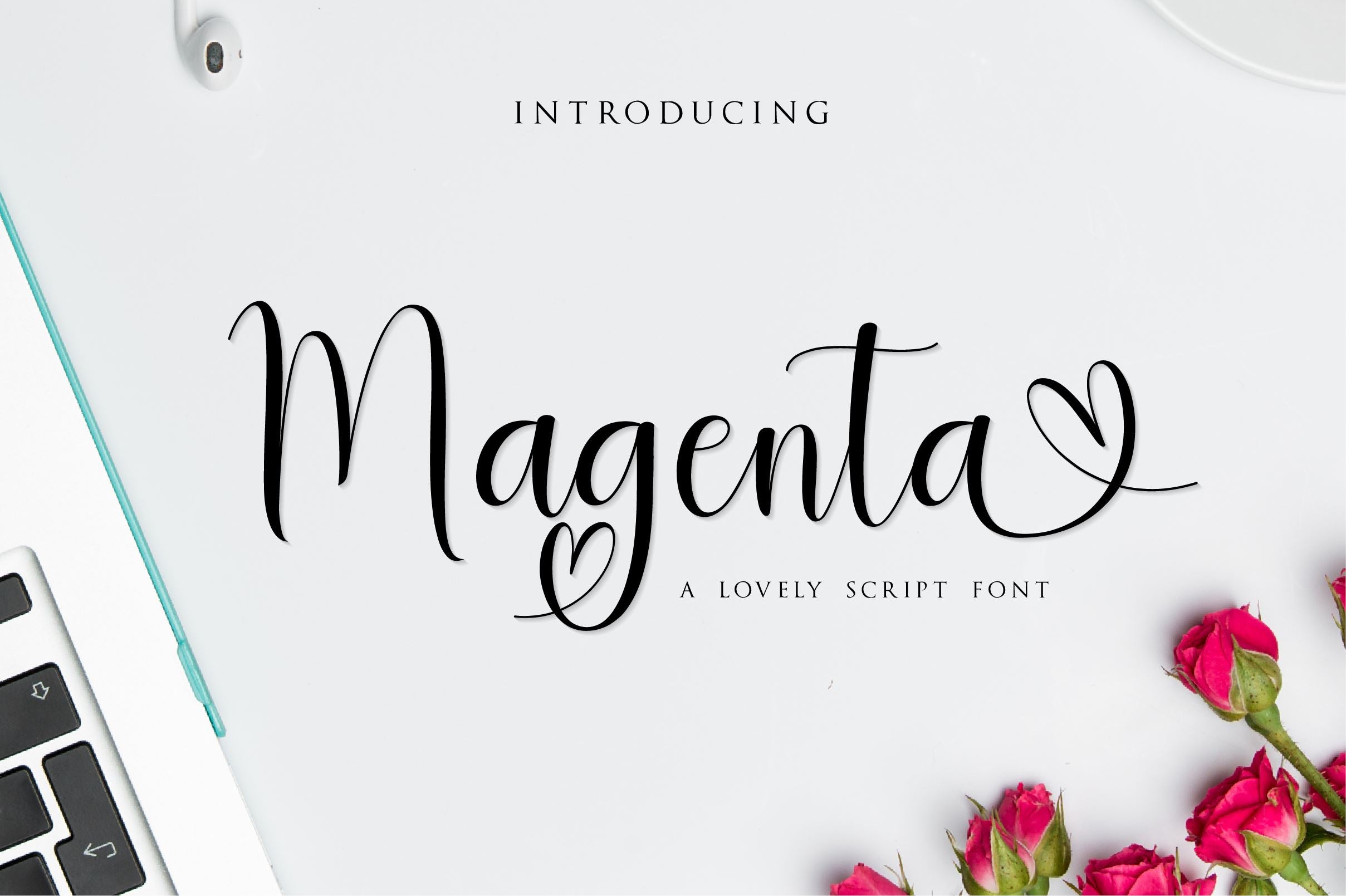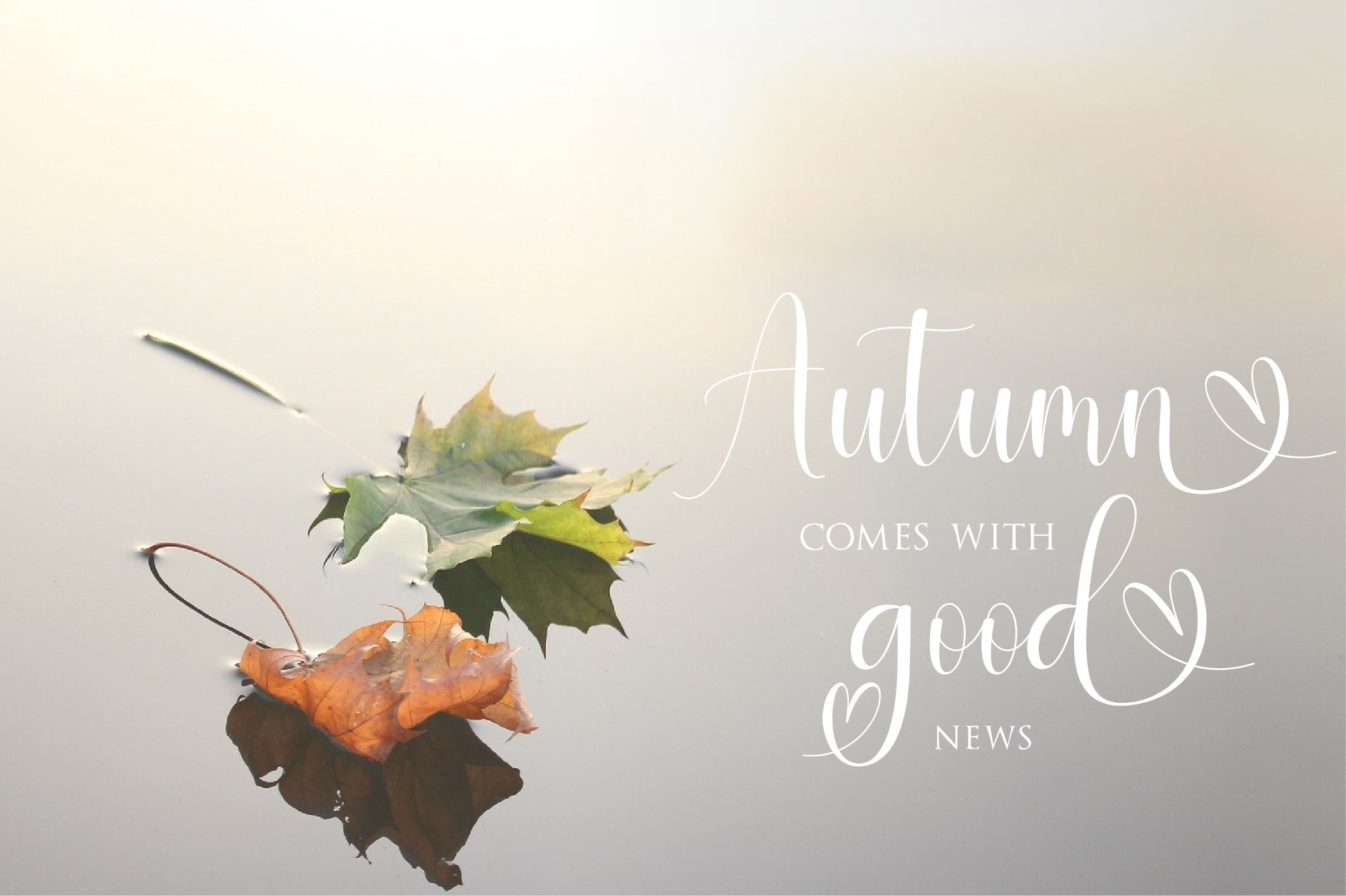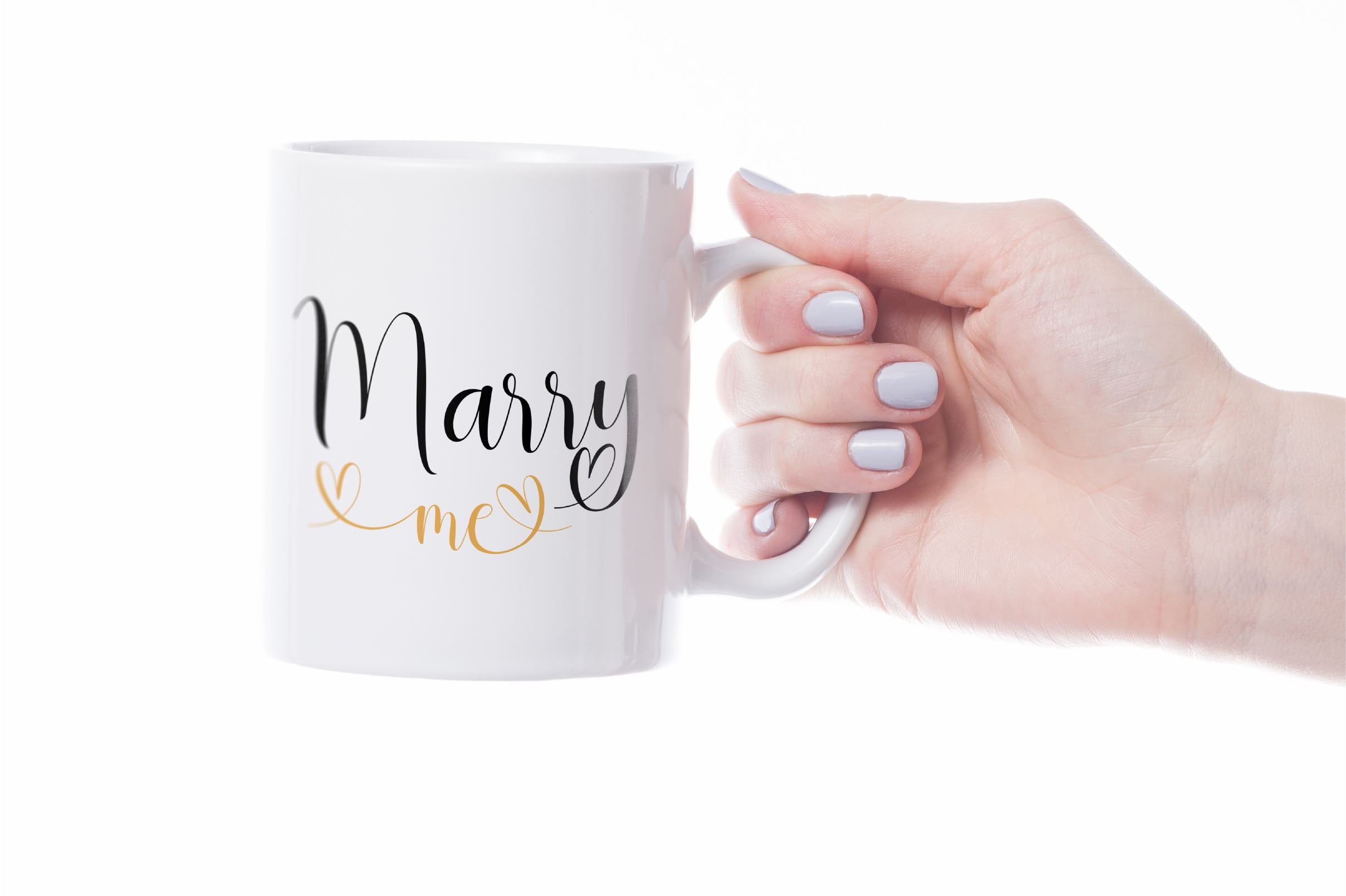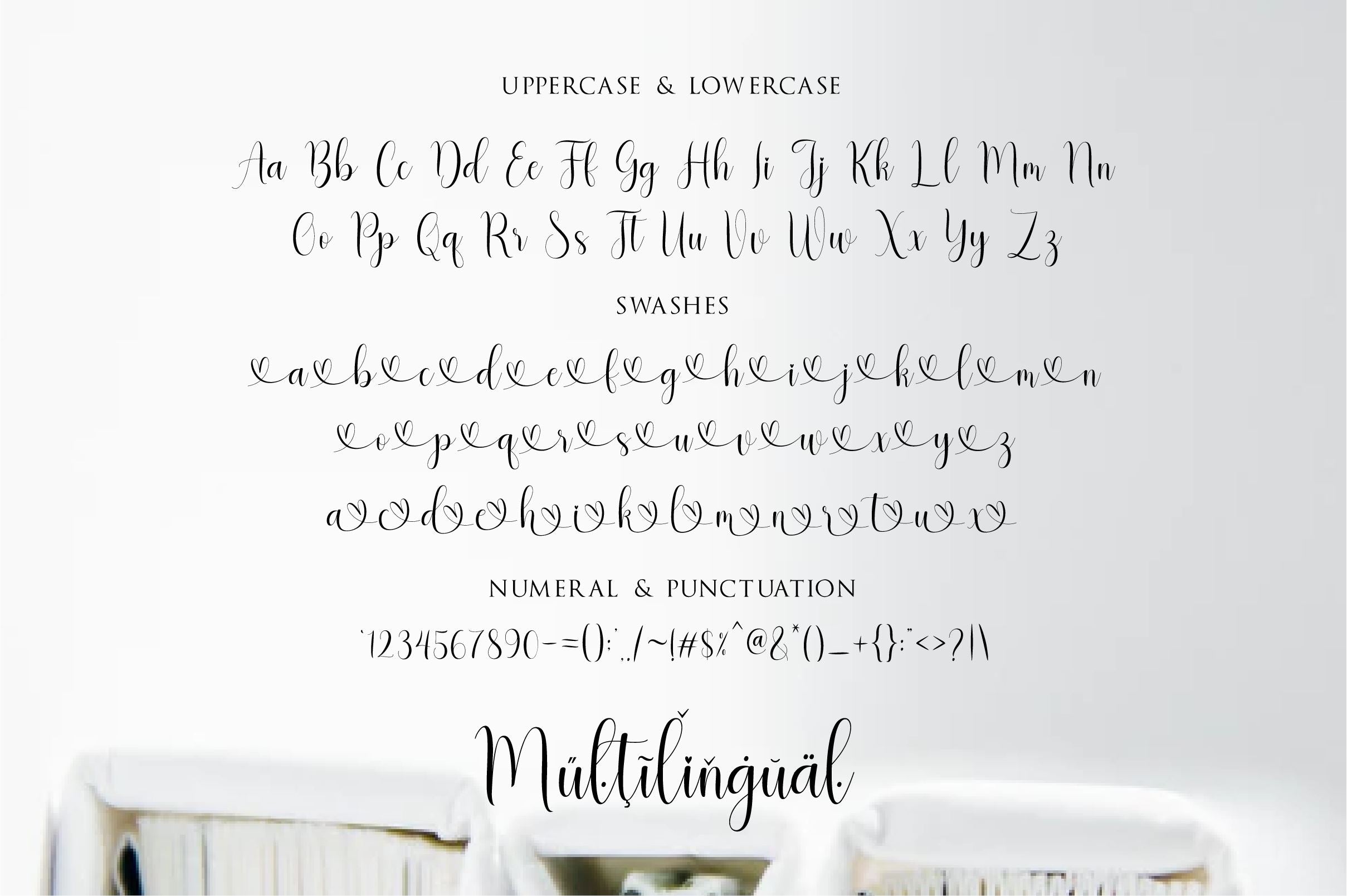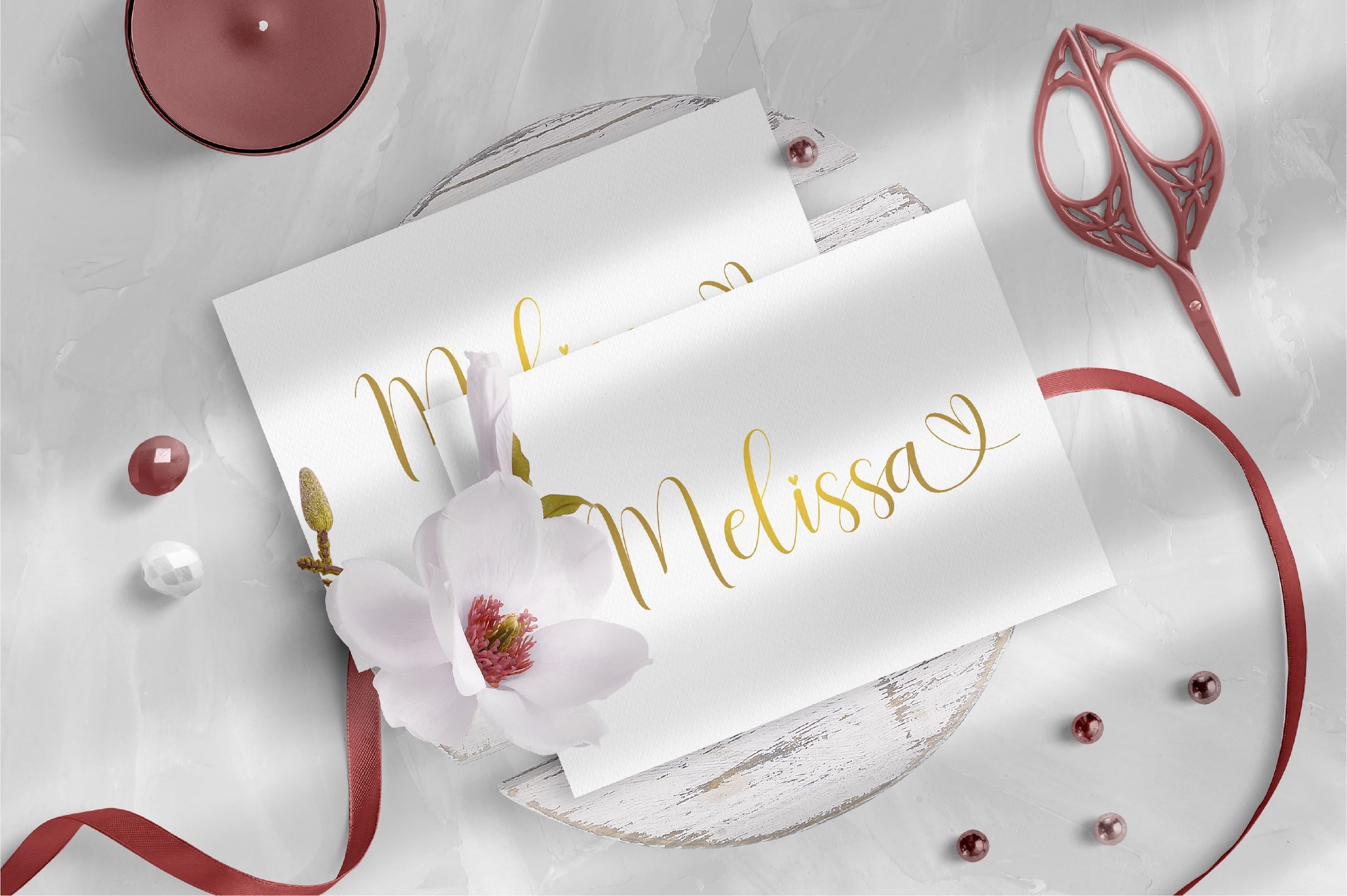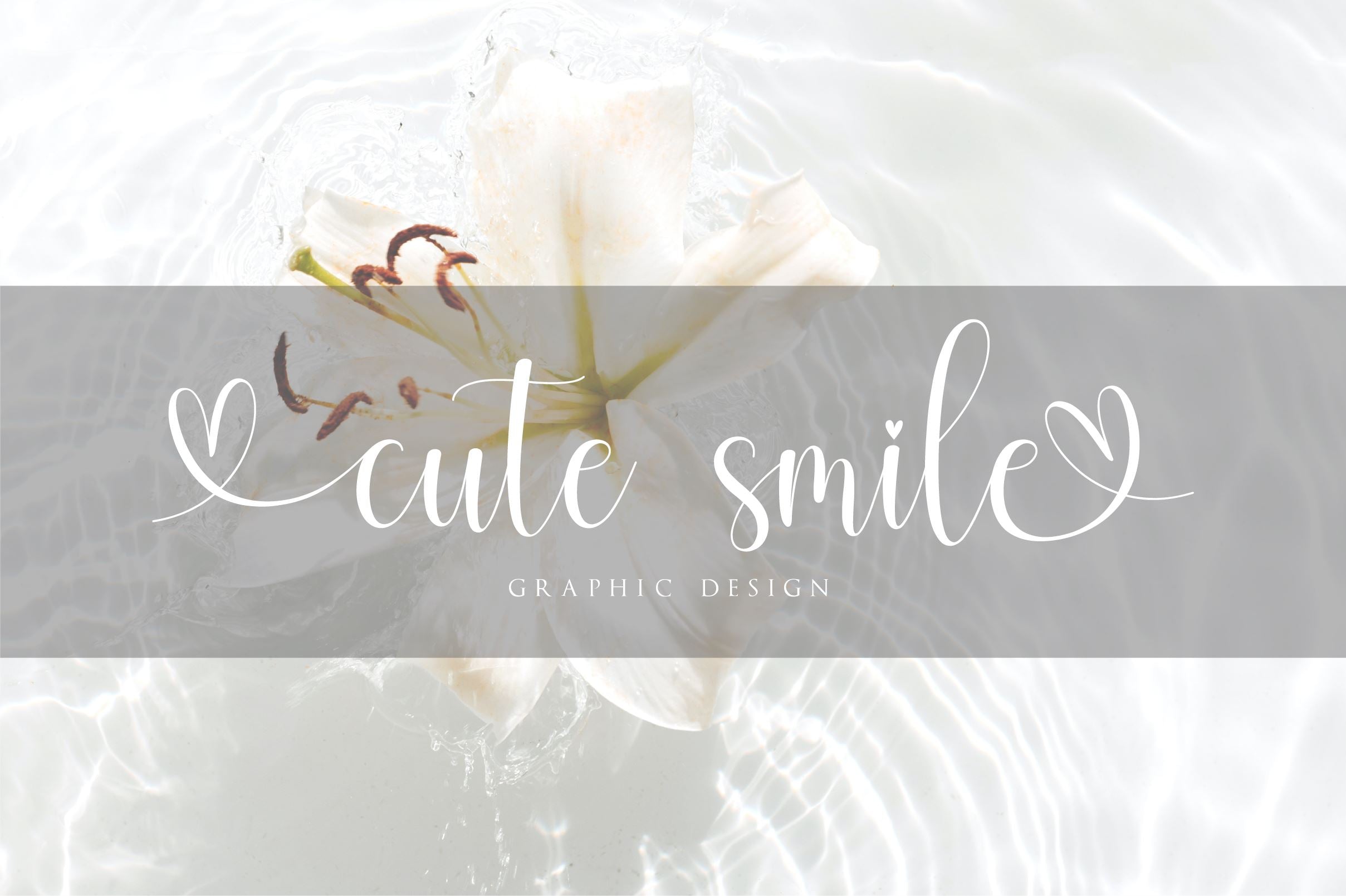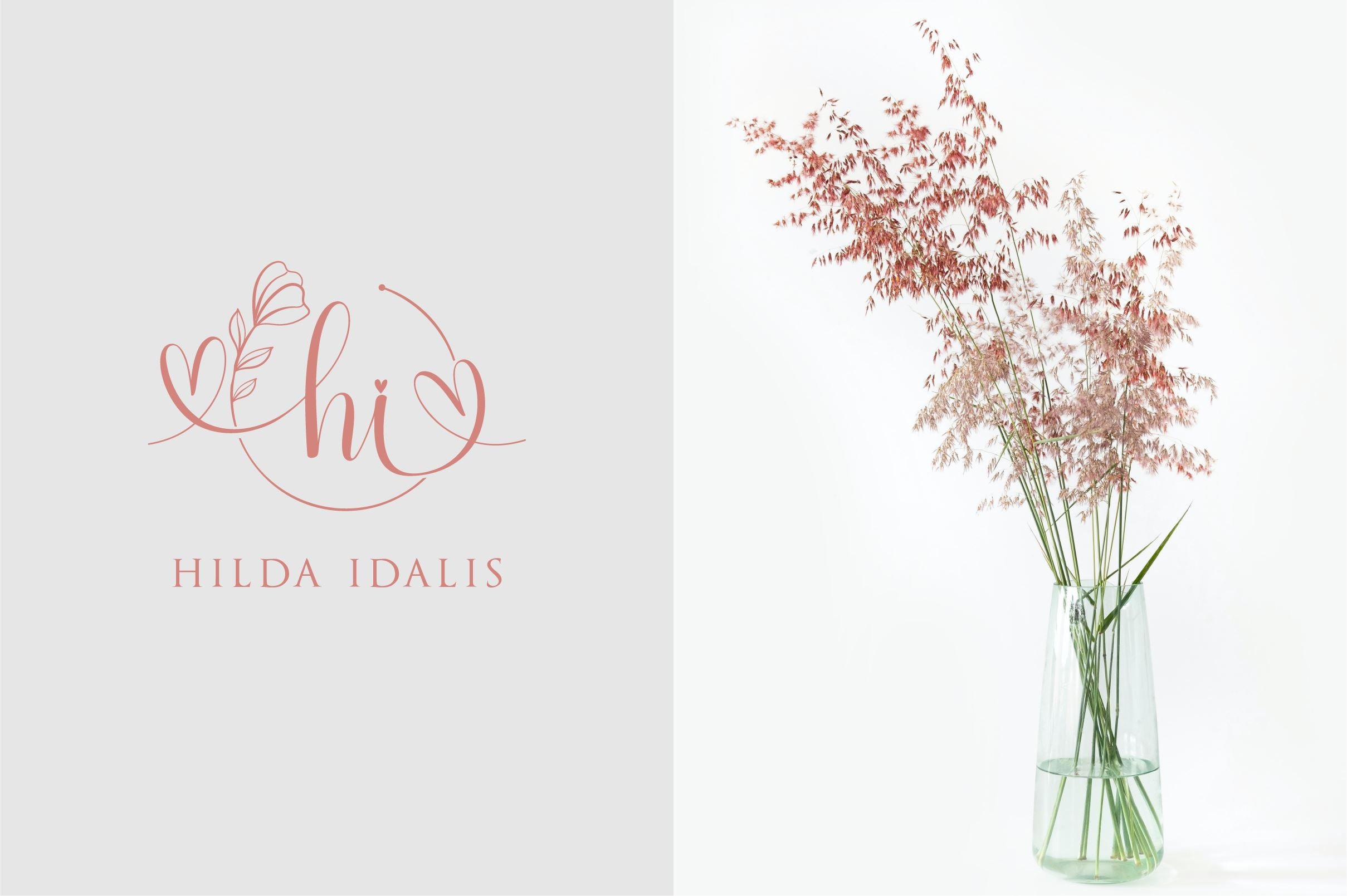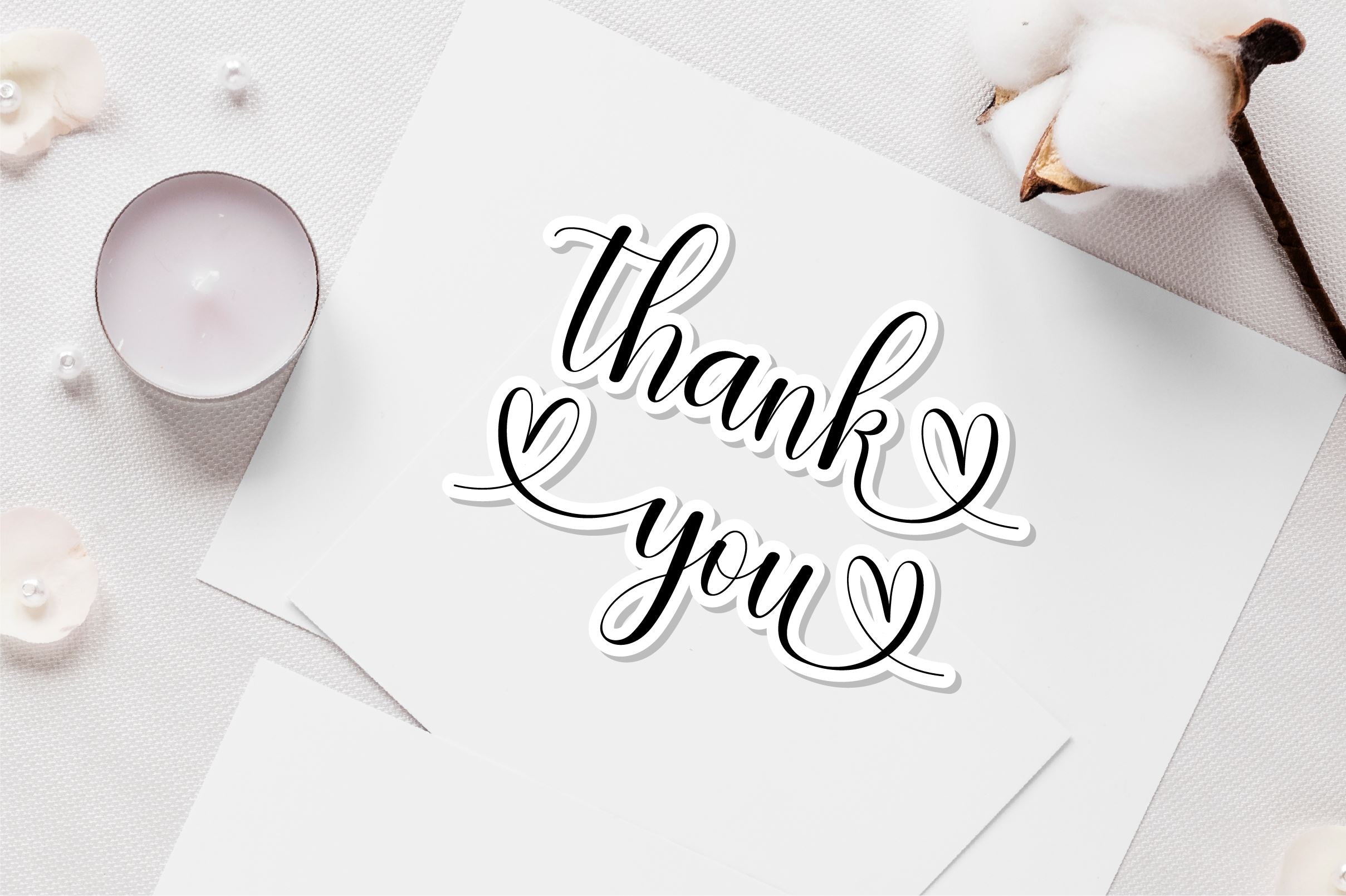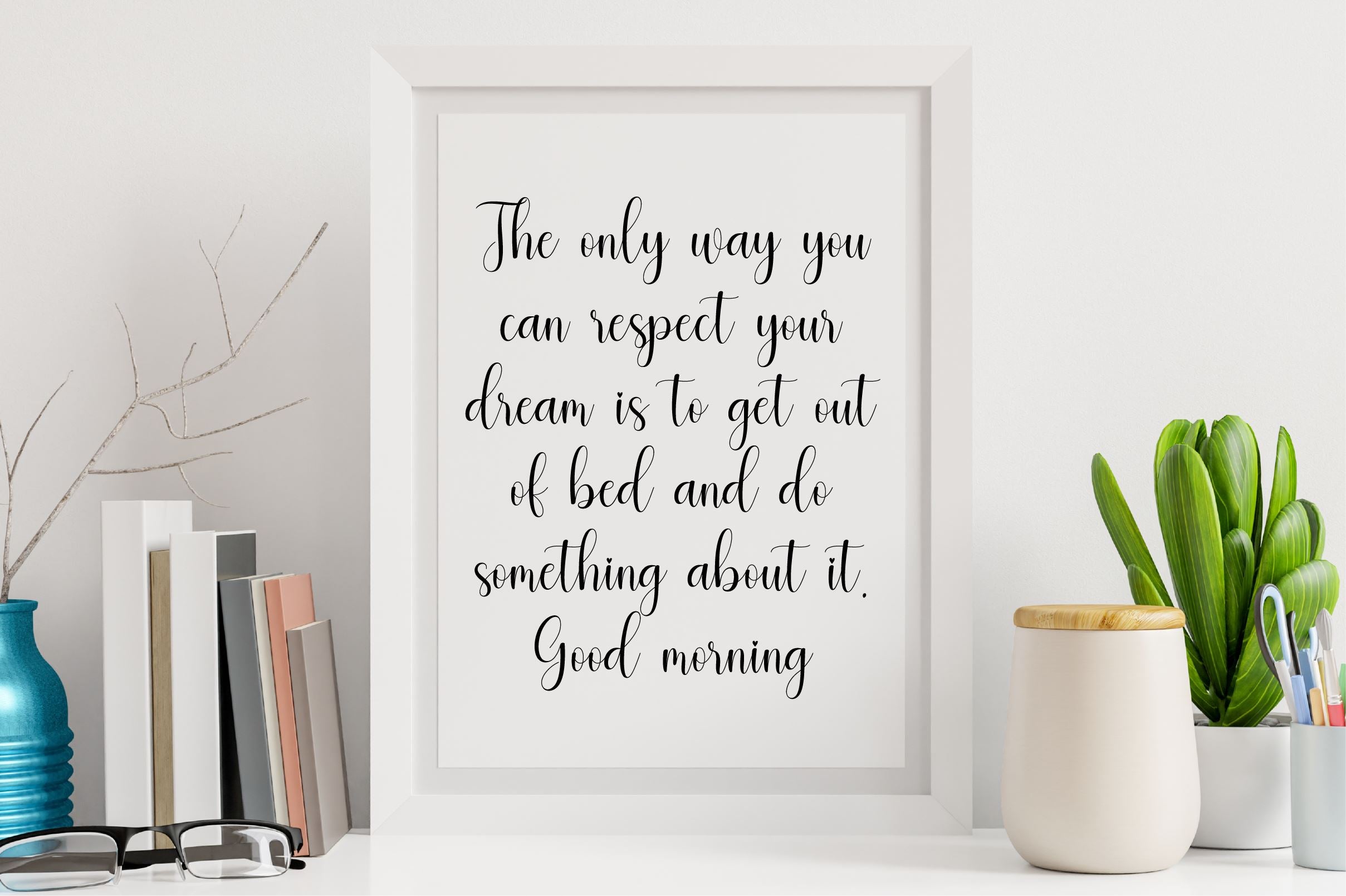
Magenta Script Font
About Magenta Script Font
The Magenta is a stylish script font. It has a modern and classy look that can be used to add an extraordinary touch to your design. Can be used for logos, branding, invitations, stationery, wedding designs, social media, advertisements, labels, watermarks, and more! What is included: Magenta OTF Magenta TTF, Numbers and Punctuation 57 Stylistic Alternates & Ligatures, nternational Language. Works on PC & Mac Simple installation that can be accessed in Adobe Illustrator, Adobe Photoshop, Adobe InDesign, and even works in Microsoft Word.Thank you for your purchase! Hope you enjoy with our font!